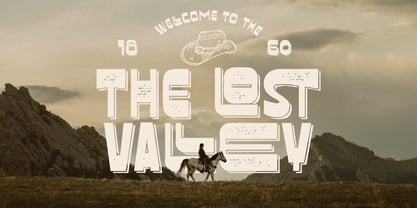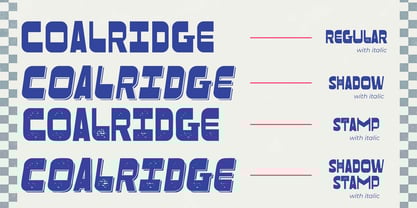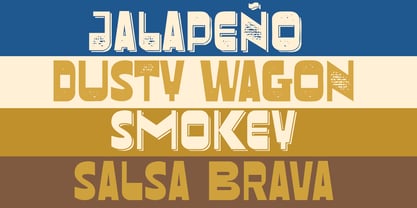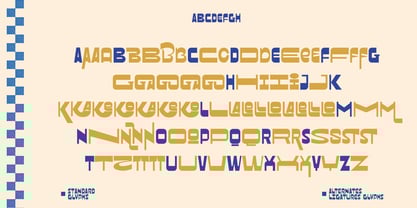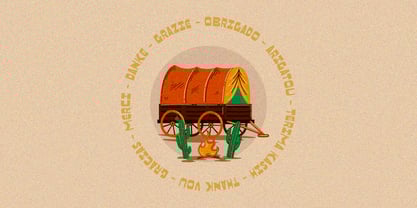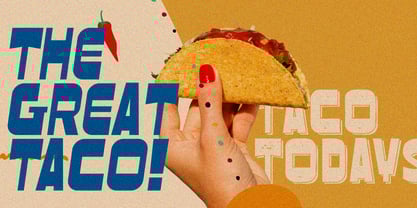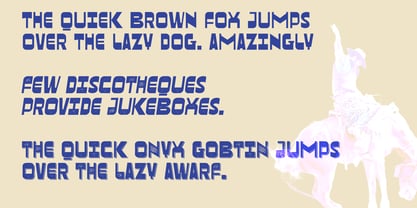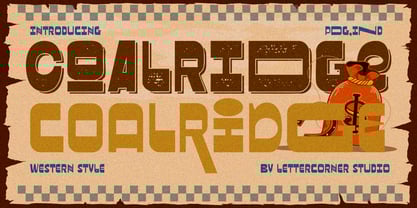
Coalridge
by Mevstory Studio
The Coalridge Font Family was designed by Muhammad Afif Ersya and published by Mevstory Studio. Coalridge contains 8 styles and family package options. More about this family
Rooted in contrast and crafted character, Coalridge is a versatile all caps type 4 style that blends rustic charm, western flair, and modern clarity. Coalridge, the bold display face, draws inspiration from vintage sign painting and western letterforms—reimagined without serifs, but with striking contrast and a unique rhythm. It includes a rich set of discretionary ligatures and stylistic alternates, perfect for creating standout logos, expressive titles, and handcrafted compositions.
Coalridge’s smooth sans serif companion brings balance with its soft curves and friendly geometry. Highly legible at smaller sizes, it complements the bold face with quiet elegance and modern simplicity. Together, they create a perfect pairing for artisan branding, rustic packaging, and sun-soaked summer visuals—from craft beverages to boutique labels, editorial spreads, and lifestyle design.